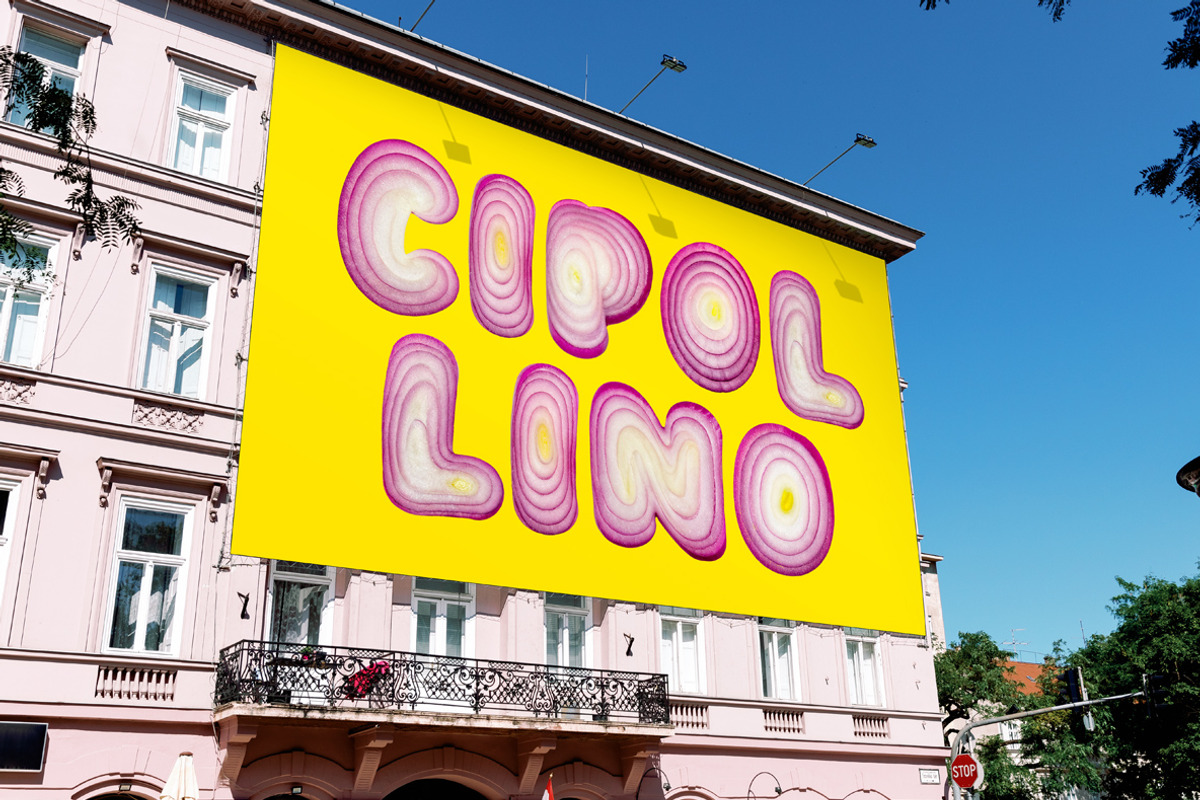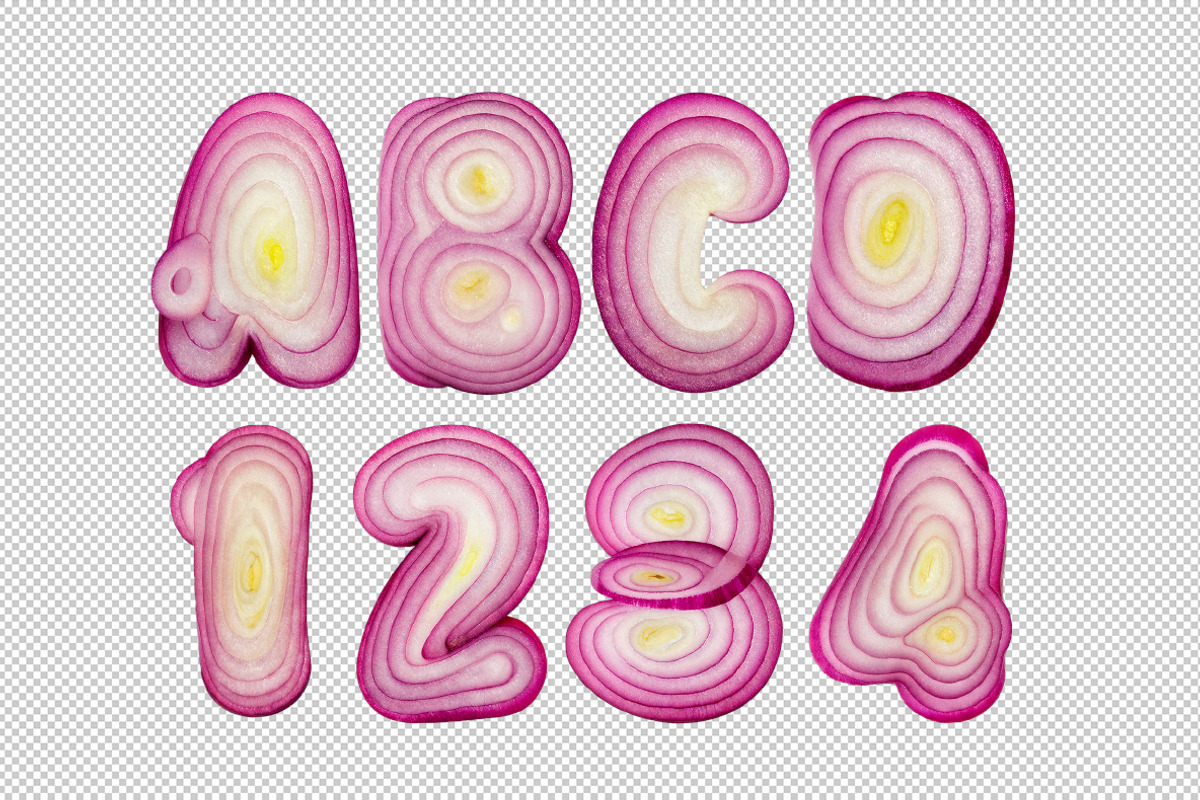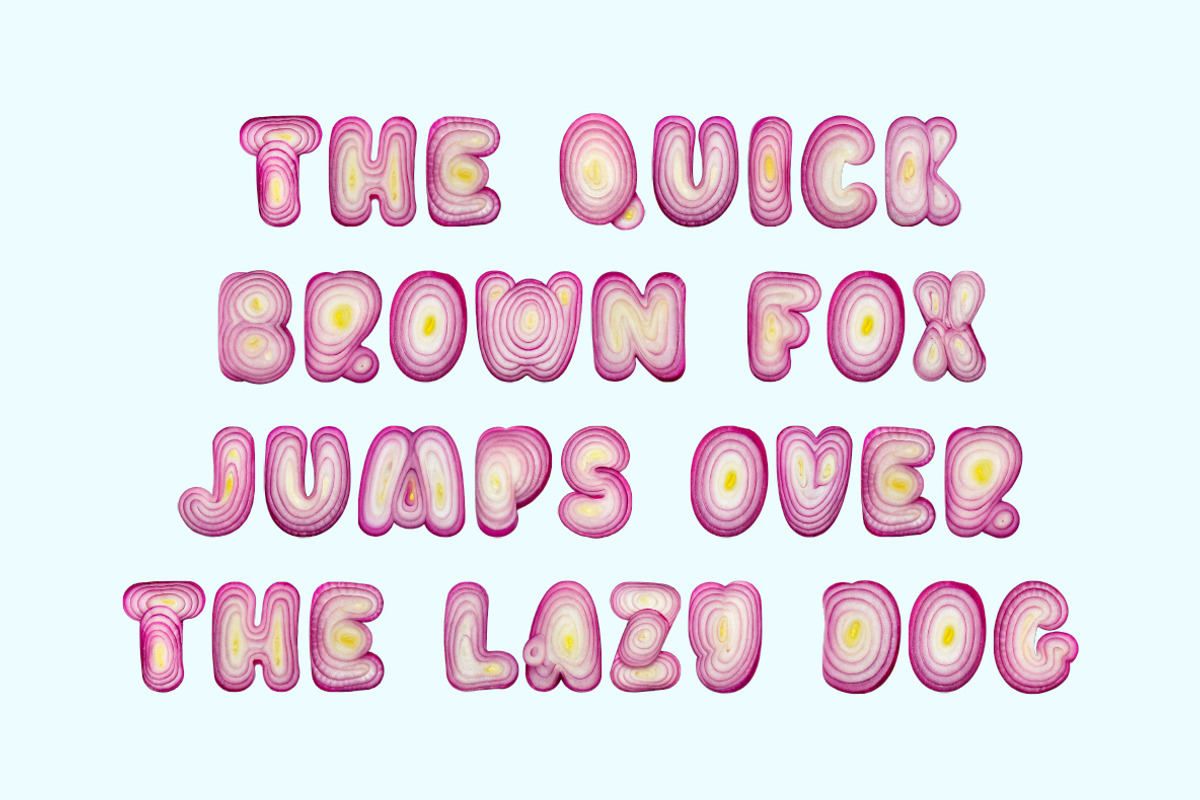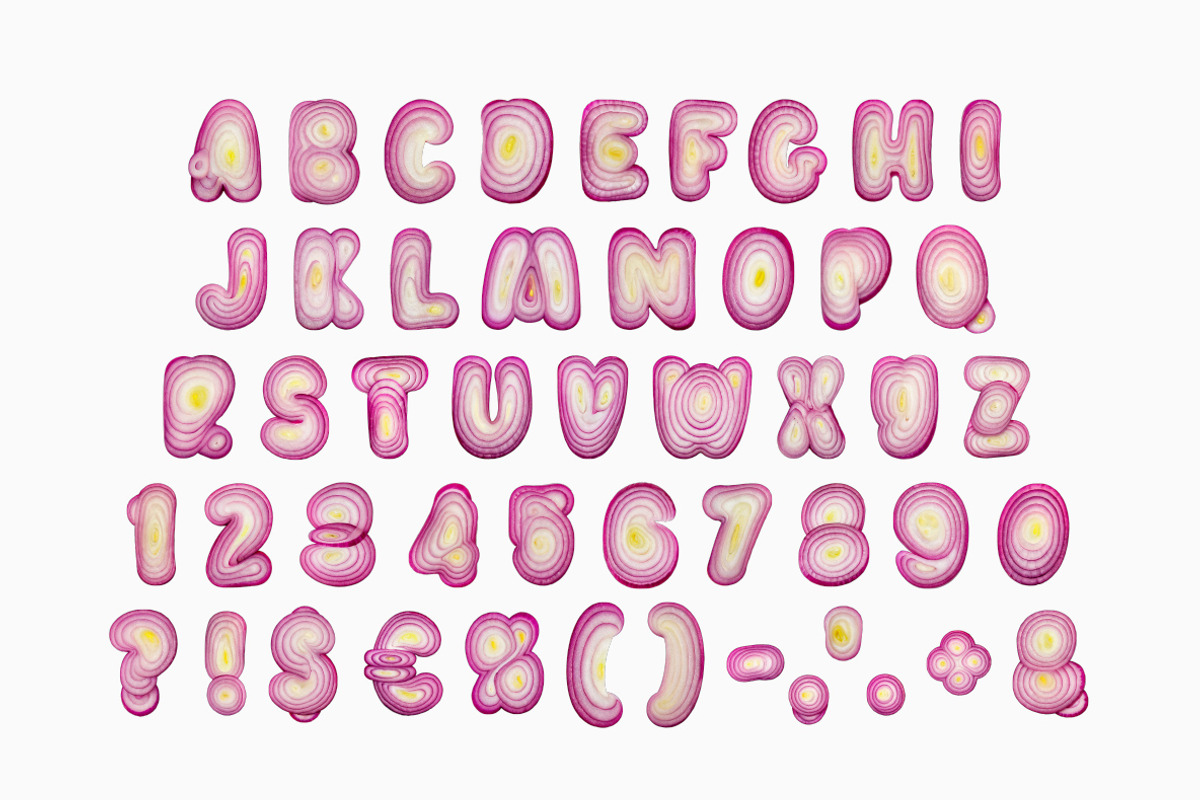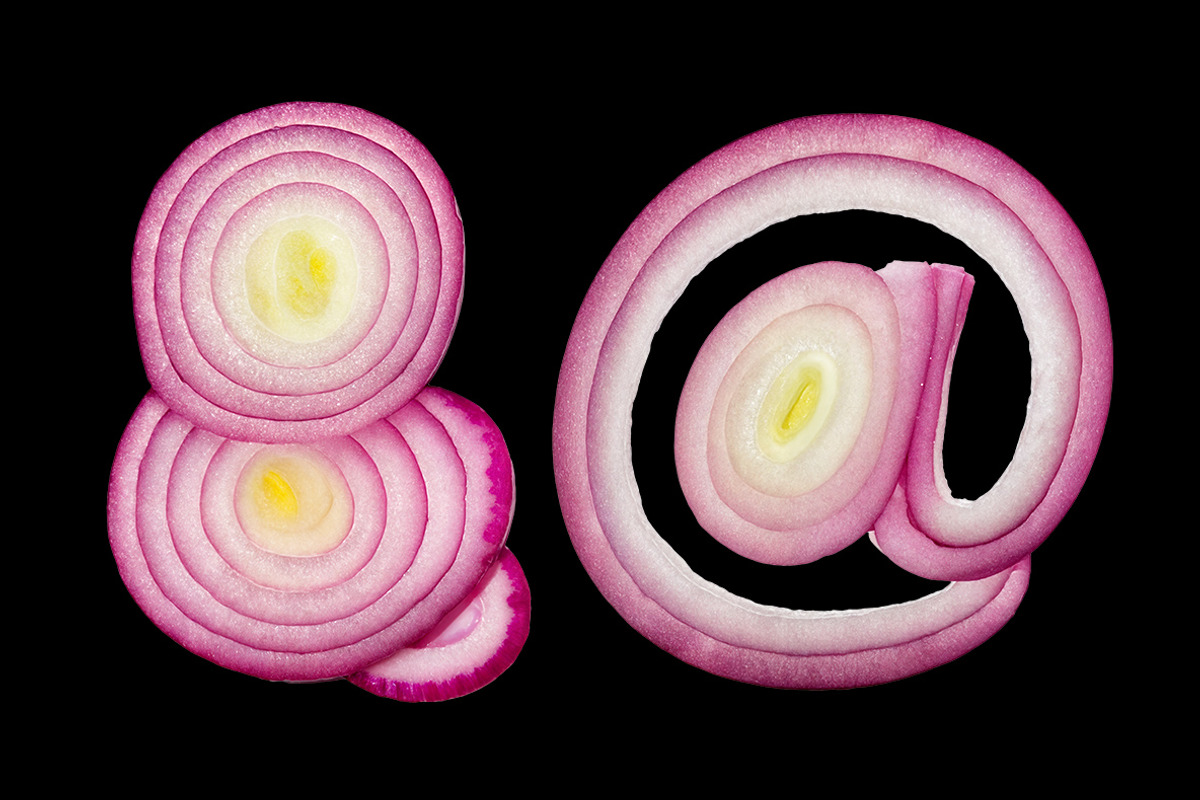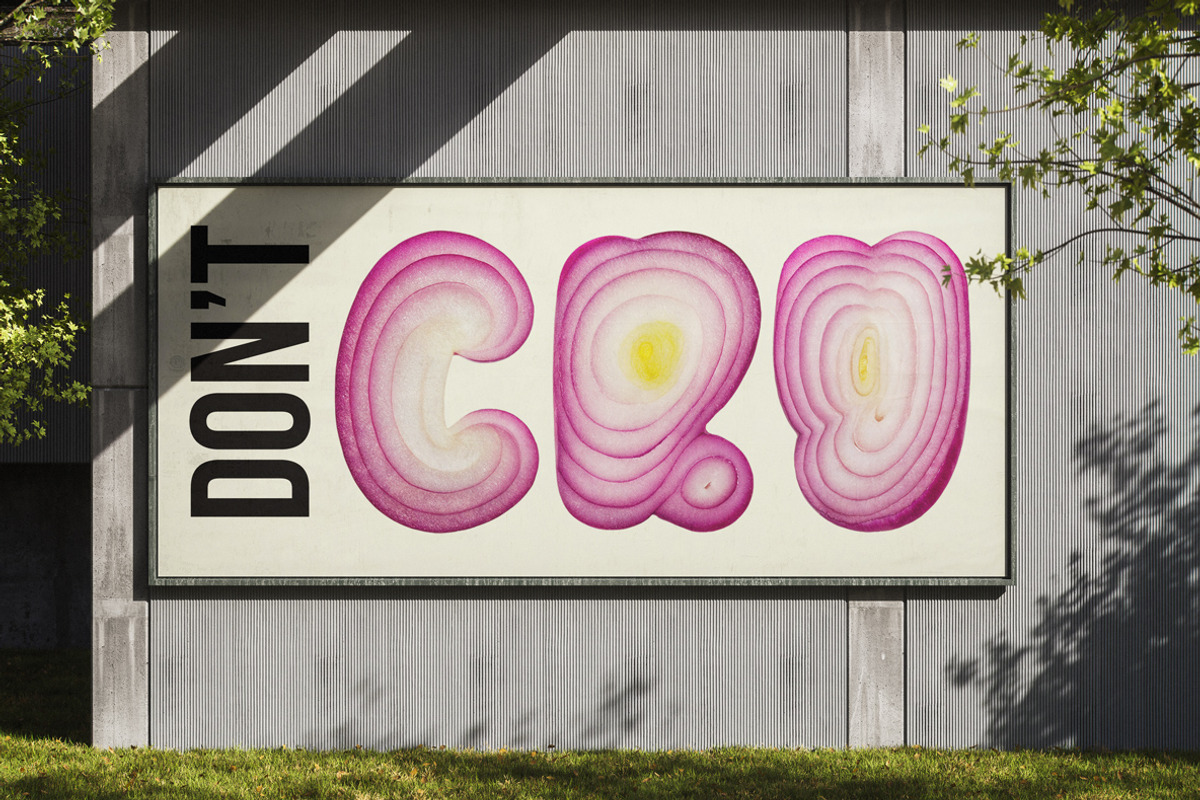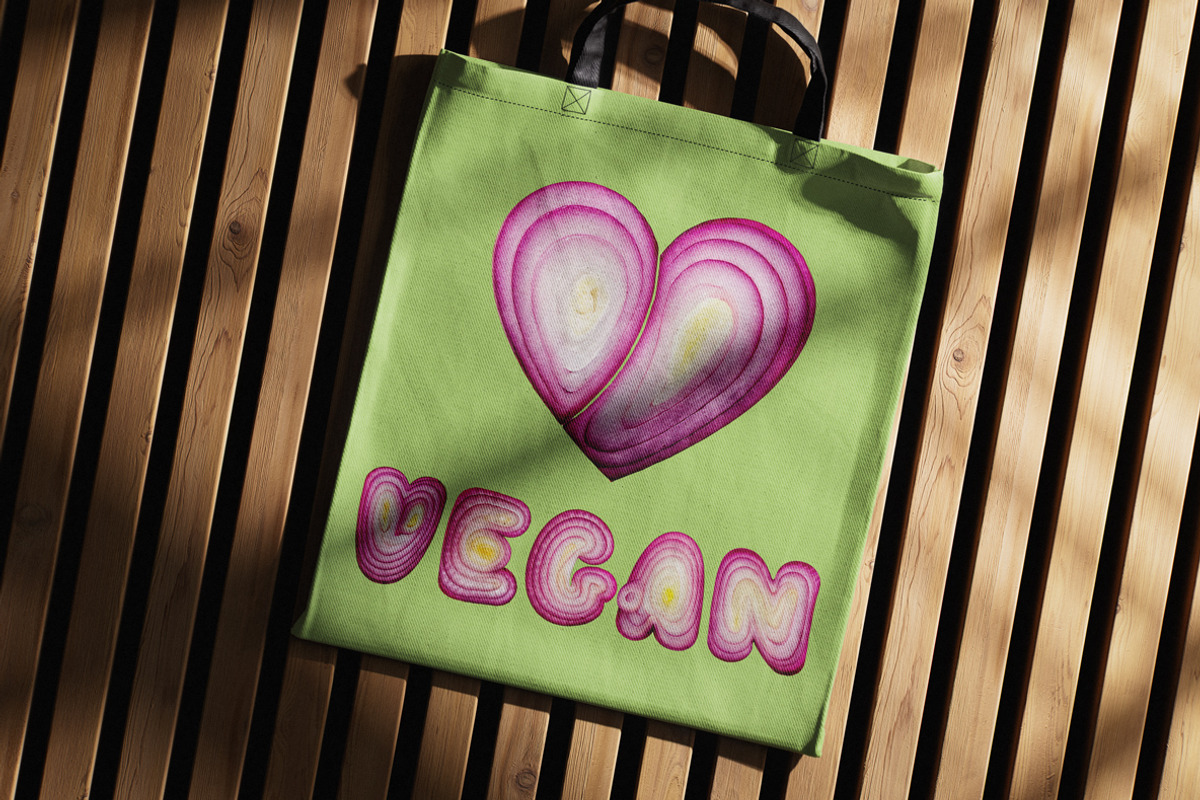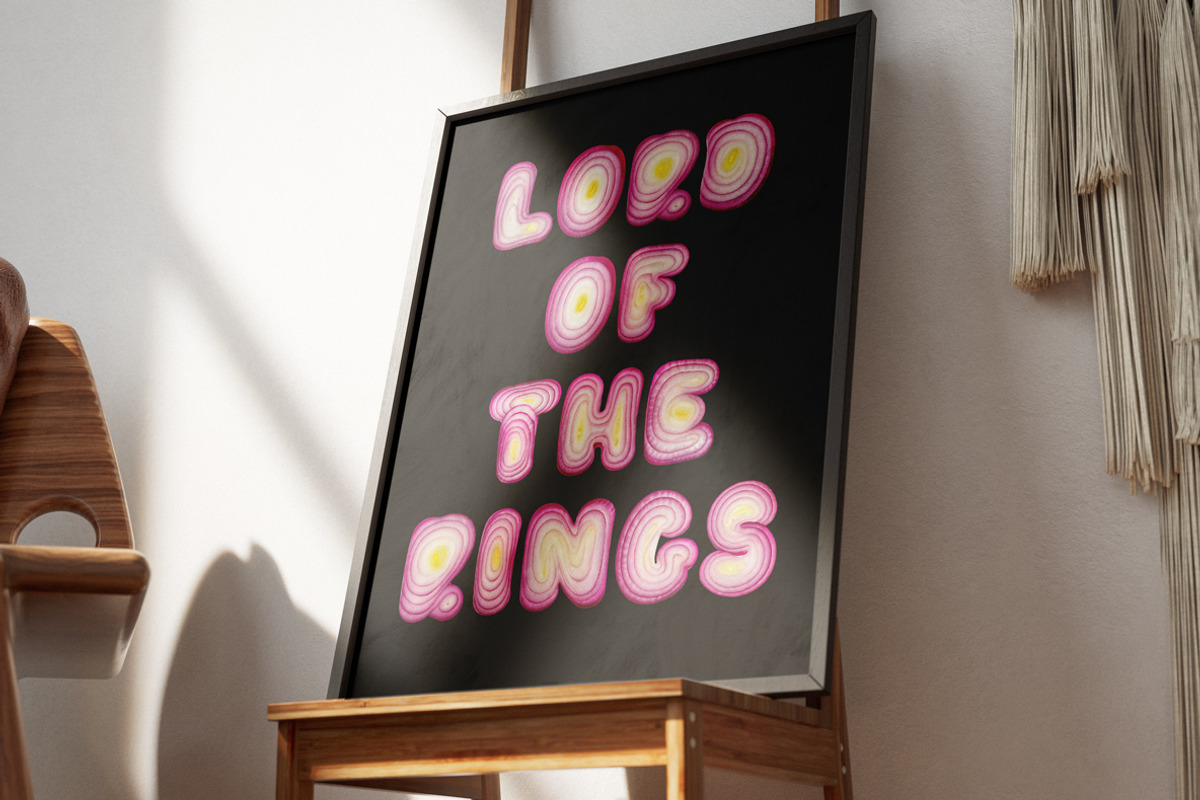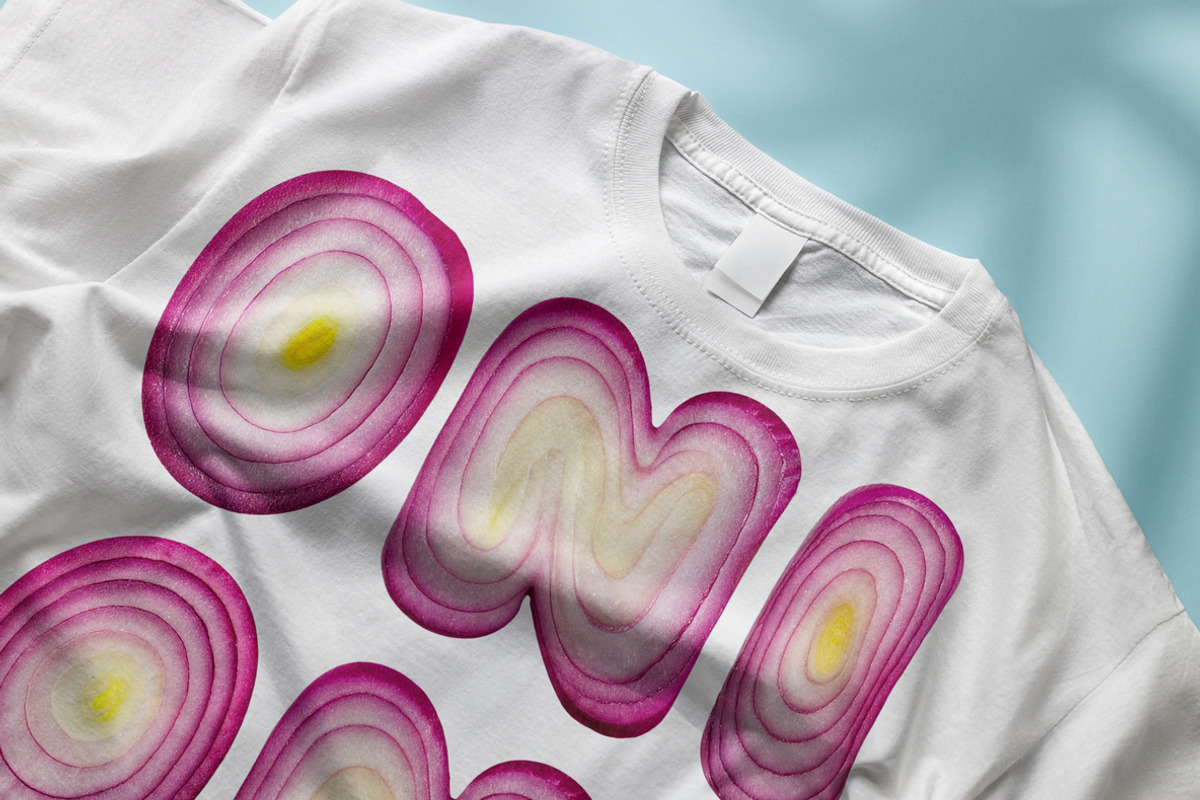
OnioType Font
OnioType Font is where typography meets tear-jerking brilliance—literally. Each letter is meticulously shaped from a red onion slice, with its natural concentric rings forming the perfect curves and contours of the alphabet. Radiating rich purples, soft whites, and sunlit yellows, this font is a feast for the eyes. OnioType playfully combines organic texture with graphic design, making it ideal for food-related projects, bold branding, or anyone with a taste for the unexpected. Both quirky and refined, this font turns a kitchen staple into a typographic statement. Warning: may cause cravings or emotional reactions. Use responsibly (and deliciously).